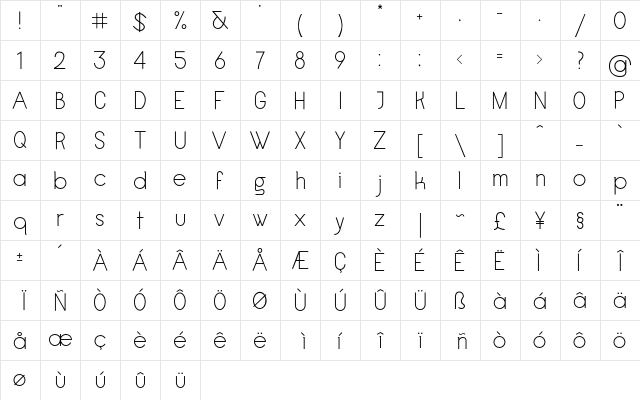
Narrenschiff Light
| Designer | Jelmer R. |
Design Context for Narrenschiff Typeface
Narrenschiff is a composed and adaptable typeface that performs quietly and consistently across a wide range of design contexts. The delicate stroke weight brings airiness and refinement to layouts.